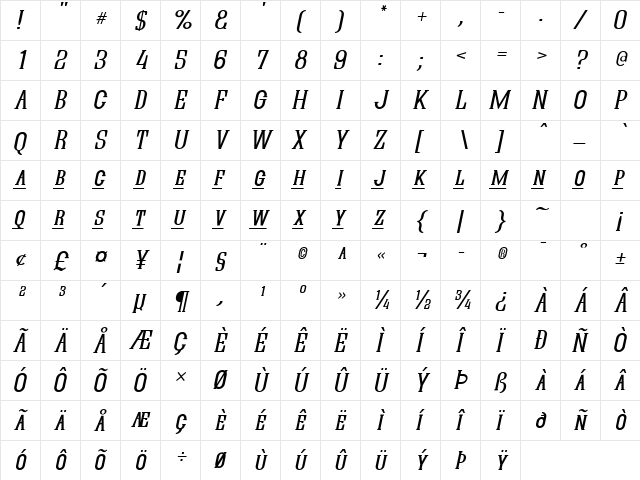
Quastic Kaps Line Italic
Design Context for Quastic Kaps Line Typeface
Quastic Kaps Line offers clean, dependable letterforms without strong stylistic allegiance, making it a practical choice for designers who need flexibility. The dynamic lean of this cut emphasises speed and emphasis in any layout.
Pro Tip: Try Quastic Kaps Line for annotation and caption copy alongside an upright companion — the contrast in angle creates a dynamic but ordered typographic system.